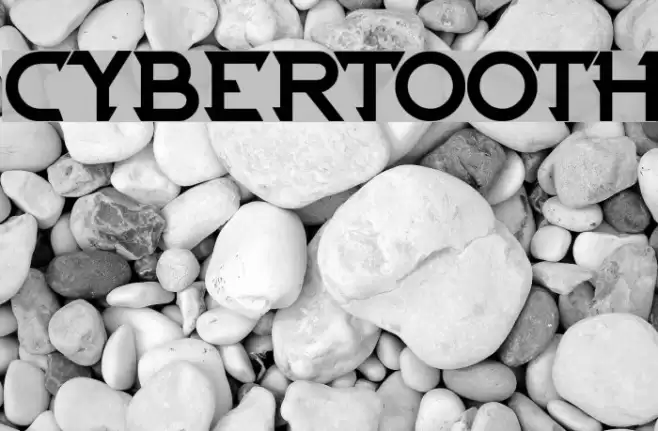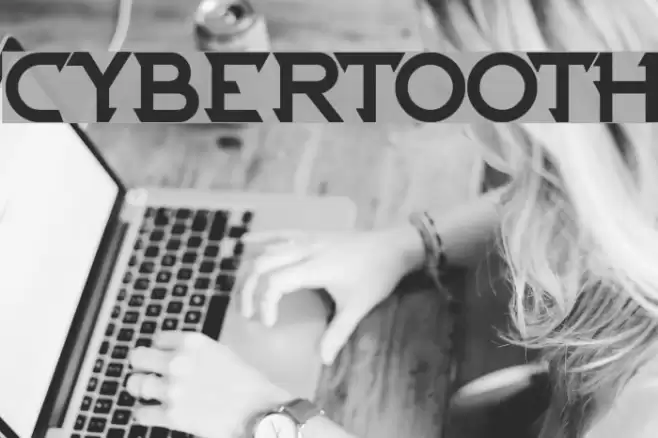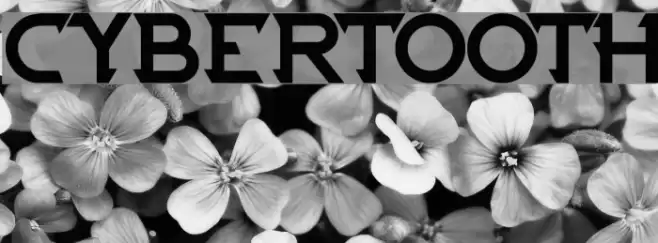
CYBERTOOTH Font
CYBERTOOTH Description
This font features a bold and futuristic design with sharp, angular edges and a geometric structure. The characters are crafted with a distinct style that combines elements of modern digital aesthetics with a hint of retro-futurism. The uppercase letters are particularly striking, with each character exhibiting unique cuts and angles that create a sense of movement and energy. The font's design is consistent across all characters, maintaining a cohesive look that is both eye-catching and versatile. Its bold presence makes it suitable for projects that require a strong visual impact.
A bold, futuristic font with sharp, angular edges and a geometric style from Uncategorized fonts.
- Proposed Projects: Ideal for technology branding, video game titles, sci-fi movie posters, and digital artwork.
- Overall Style: Futuristic